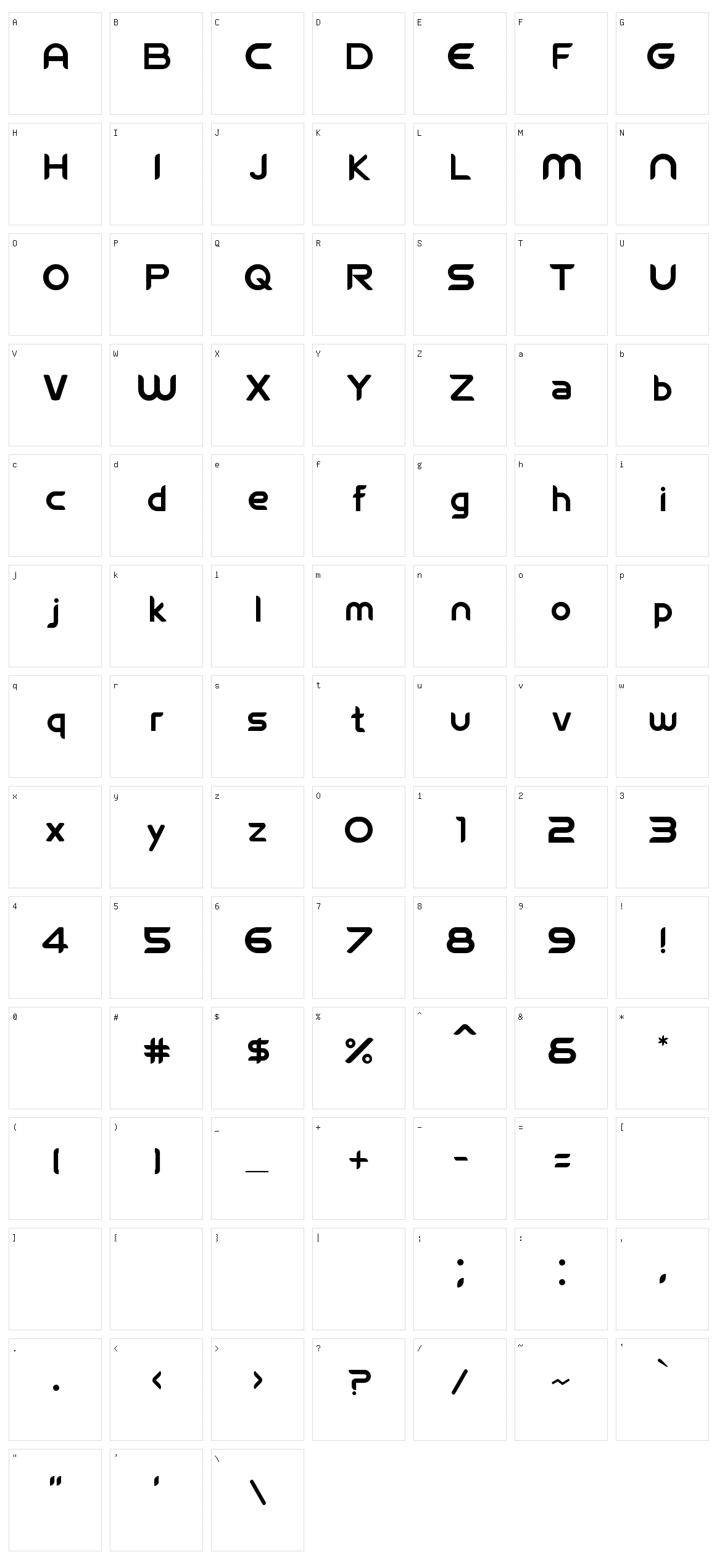
FIFA Welcome
Esta fuente está en proceso de desarrollo (BETA 2), solo úsenla como prueba hasta que se lance la versión final.
Sólo están disponibles las mayúsculas y los signos de <, =, >, ., :, ;
Se incluyen más caracteres usados en el Español (a excepción de Ü o "U" con diéresis).
Sólo se puede usar en tamaño mayor a 28 puntos por que a una escala menor se distorsiona.
Mejoras en las tipografías de varios caracteres como escala lineal, altura de las minúsculas uniforme, sólo se puede usar en un tamaño grande (más de 20 para evitar distosión).